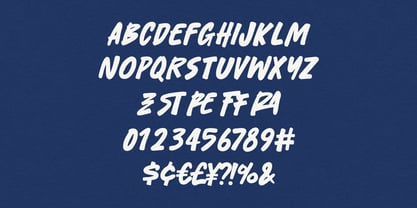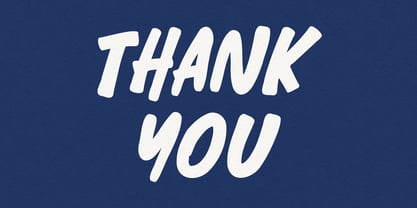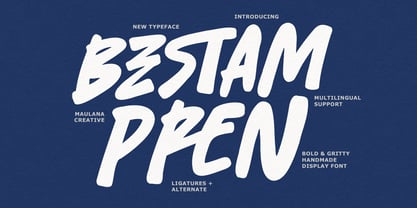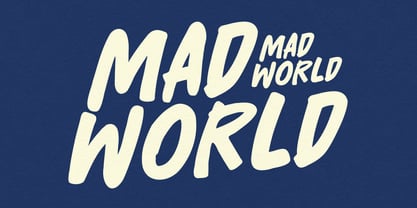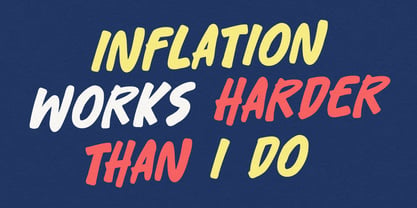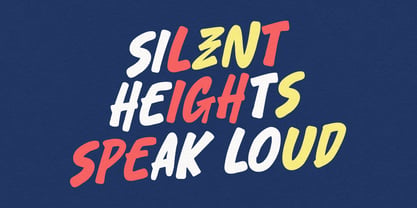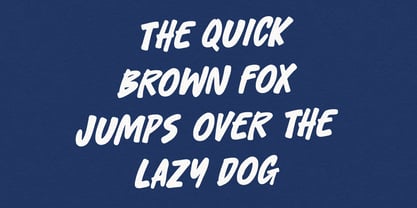
MC Bestam Pren
von Maulana Creative
Die Schriftfamilie MC Bestam Pren wurde von Gilang Maulana entworfen und von Maulana Creative veröffentlicht. MC Bestam Pren enthält 1 Stile. Mehr über diese Familie
Bestam Pren is a powerful, hand-drawn display font that balances raw energy with a modern, gritty aesthetic. Featuring thick, textured brush strokes and a natural "imperfect" feel, this typeface is designed to make a loud statement. It includes a variety of ligatures and alternates to ensure your designs look authentically handmade. Whether you're working on street-style branding, edgy posters, bold social media quotes, or merchandise, Bestam Pren brings a high-impact, rebellious vibe to any project.
Designer: Gilang Maulana
Foundry: Maulana Creative